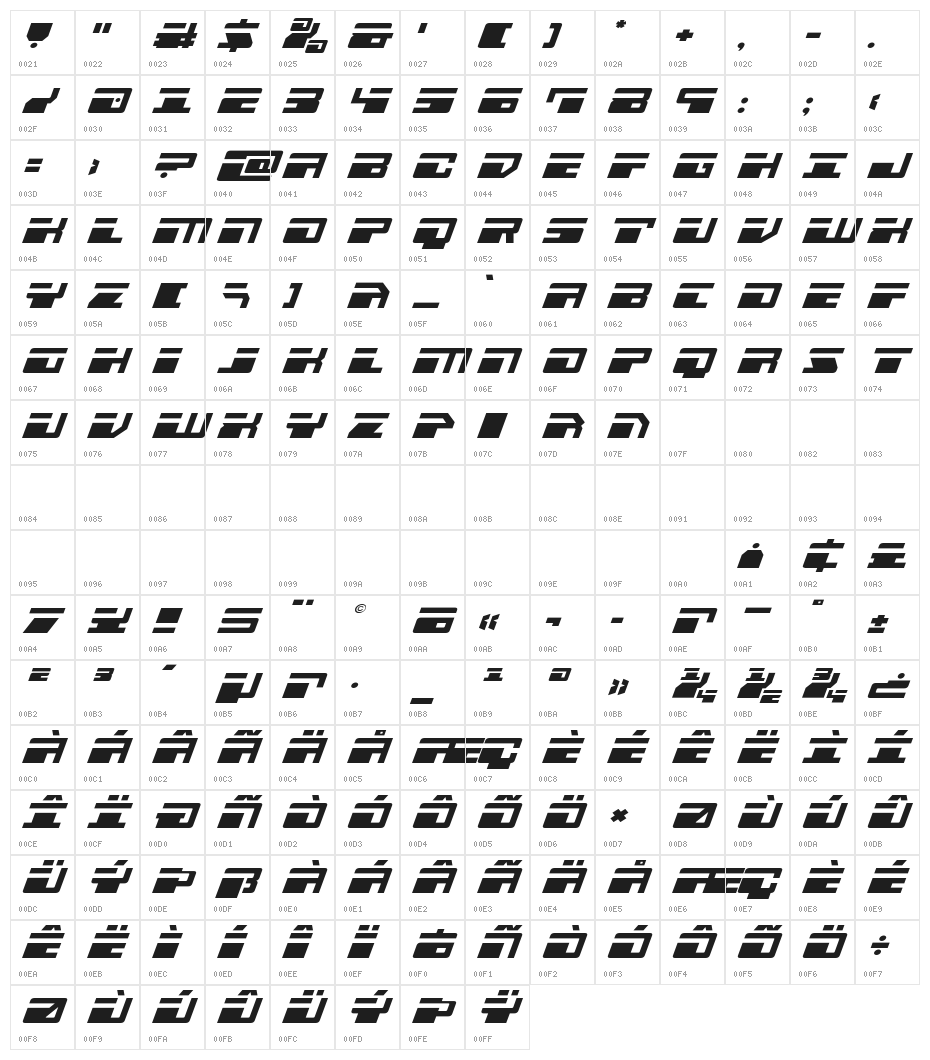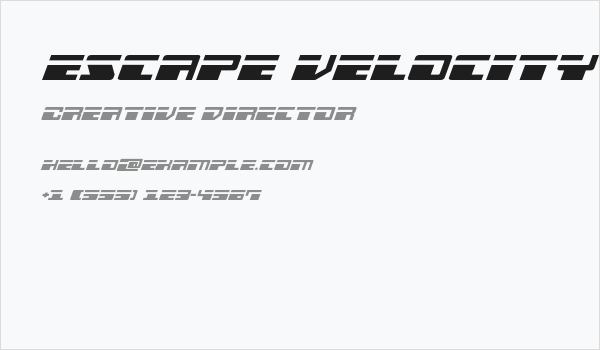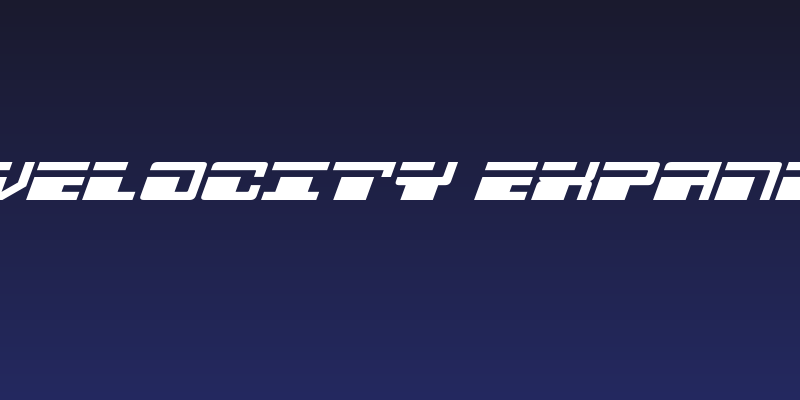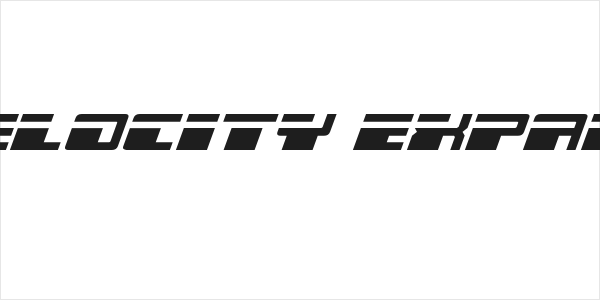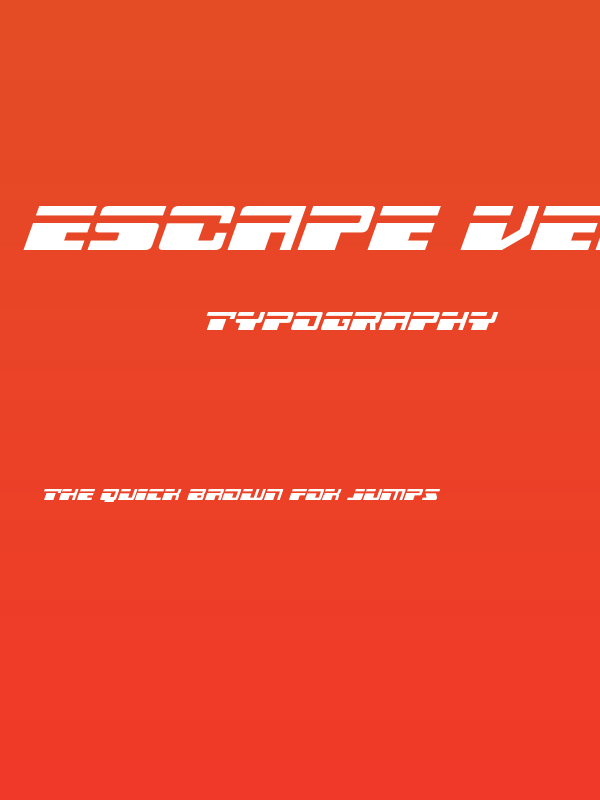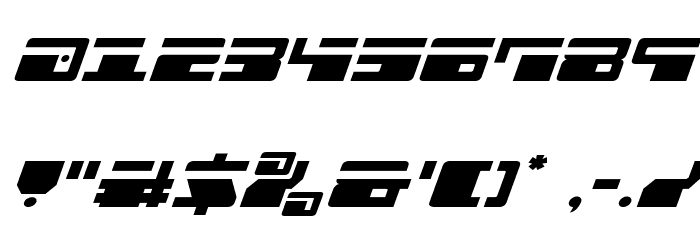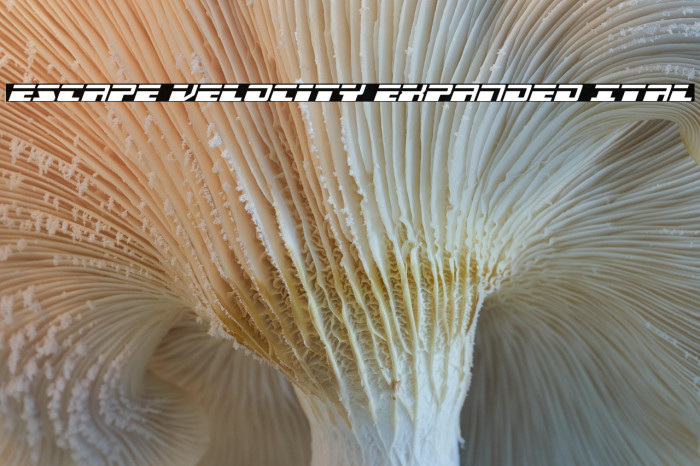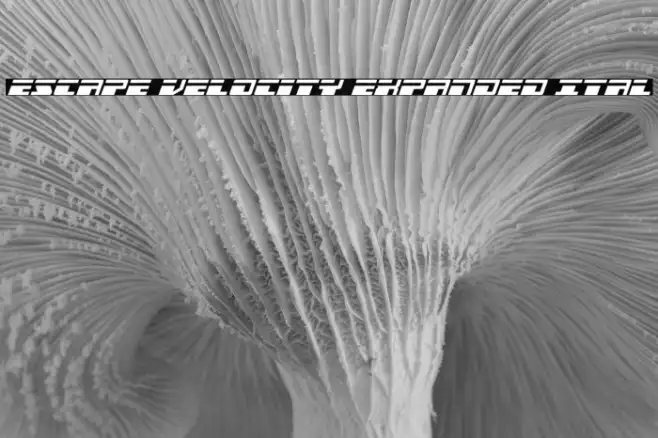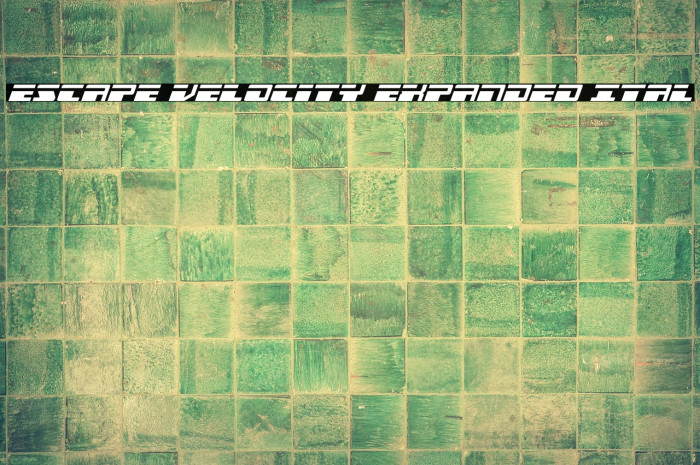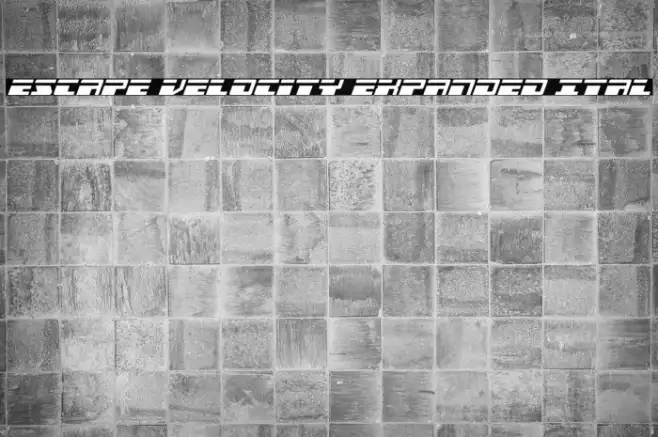
Escape Velocity Expanded Ital Font
Escape Velocity Expanded Ital Description
This font features a bold, futuristic design with an expanded width and italicized slant, giving it a dynamic and forward-moving appearance. The characters are constructed with sharp angles and geometric shapes, creating a sense of speed and modernity. The uppercase and lowercase letters maintain a consistent style, with the lowercase mirroring the uppercase in form. Numbers and special characters are designed to match the bold, angular aesthetic, ensuring a cohesive look across all text. The font's unique style makes it ideal for projects that require a strong, impactful visual presence.